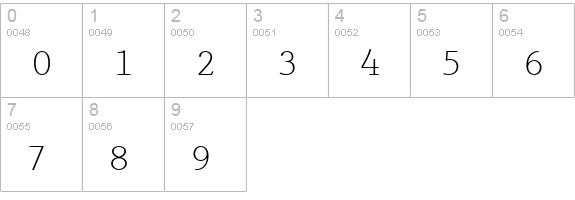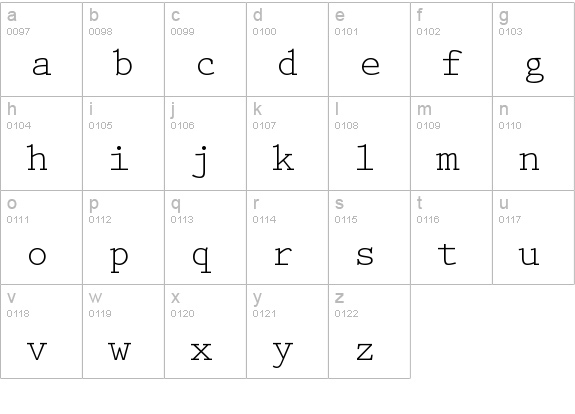
Keyboard Elite SSi Font Details
The Keyboard Elite SSi font is a stunning addition to any typography collection. With its sleek and modern design, this font exudes elegance and sophistication. Its clean and crisp lines make it perfect for a wide range of projects, from logos to headers and everything in between. One of the best things about the Keyboard Elite SSi font is that it is freely available to download at FontsMarket.com. This means that you can easily add this font to your design arsenal without breaking the bank. Whether you're a professional designer or just someone looking to spice up their personal projects, this font is a must-have. With its wide range of characters and glyphs, the Keyboard Elite SSi font allows you to create unique and eye-catching designs. Its versatility makes it suitable for both print and digital projects, ensuring that your work will always stand out from the crowd. The Keyboard Elite SSi font is designed with attention to detail, ensuring that each character is perfectly balanced and visually appealing. Its smooth curves and precise angles give it a professional and polished look, making it a great choice for any project. Whether you're designing a logo for a corporate client or creating a poster for an event, the Keyboard Elite SSi font is sure to impress. Its timeless design and modern aesthetic make it a versatile and reliable font choice. In conclusion, the Keyboard Elite SSi font is a beautiful and versatile font that is freely available to download at FontsMarket.com. With its sleek design and wide range of characters, this font is perfect for any design project. Don't miss out on the opportunity to add this stunning font to your collection.